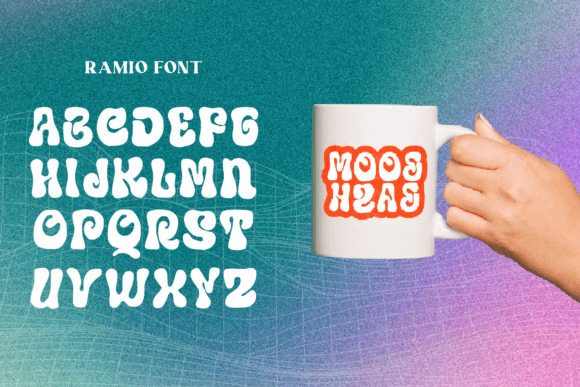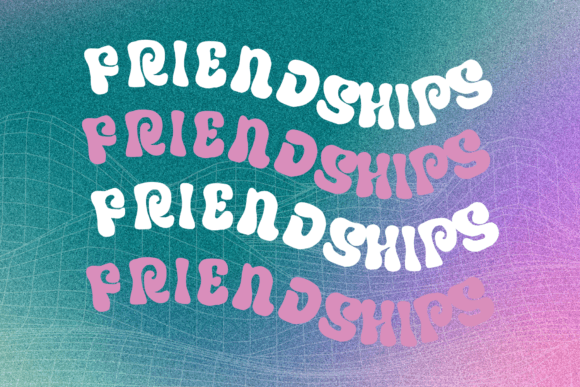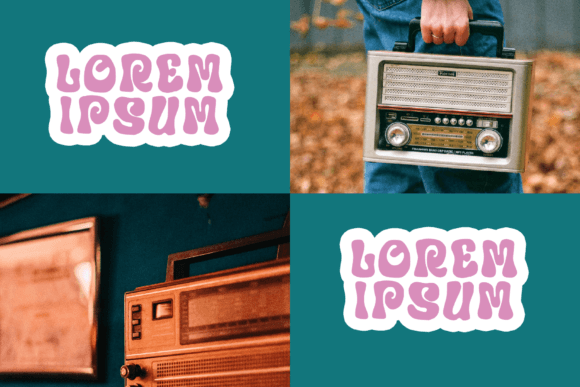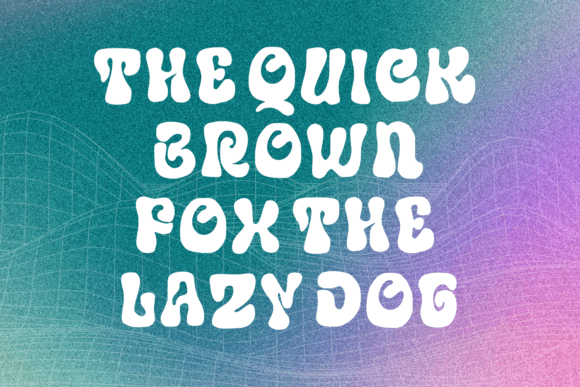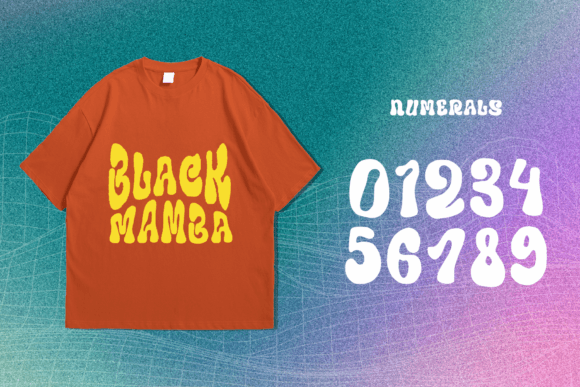
Introduction to Ramio Font
Imagine you’re browsing through a vintage record store, surrounded by the iconic album covers of the 70s and 80s. Suddenly, you stumble upon a design that makes you stop and stare – the bold, eye-catching font that screams fun and personality. That’s the magic of the Ramio Font, a design resource that’s about to take your creative projects to the next level.
As a designer, you’re always on the lookout for that special something that sets your work apart from the crowd. The Ramio Font is just that – a high-quality, free download that’s perfect for projects that demand attention and exude an infectious sense of fun. With its fluid, dynamic strokes and playful rhythm, this font is sure to be a game-changer for your next creative project.
- Unique, modern font with a transparent background, ideal for graphic design and digital art
- Comes with a scalable design, allowing for easy resizing without loss of quality
Honest Review: Ramio Font
As a designer, I’m always on the lookout for high-quality fonts to elevate my creative projects. I recently came across the Ramio Font, and I’m excited to share my honest review.
- ✨ The Ramio Font is highly customizable, with a wide range of styles and weights to choose from.
- ✨ The font is incredibly versatile and can be used for a variety of design projects, from logos to typography-based art.
- ⚠️ The Ramio Font doesn’t come with a transparent background, which can make it a bit tricky to use in certain design scenarios.
- ⚠️ The font can be a bit too bold for some designs, so be sure to use it judiciously.
Overall, I’m impressed with the Ramio Font. While it’s not perfect, its high quality and versatility make it a valuable addition to any designer’s toolkit. I’d definitely recommend it for any creative project that requires a stylish and professional font.
For optimal results, use Ramio Font in a high-quality design project, such as a brochure or a website. Experiment with different font sizes and colors to create a visually appealing design. Consider using a transparent background to give your design a clean and modern look.
Common Use Cases for Ramio Font
Some common use cases for Ramio Font include creating a logo for a creative project, designing a flyer for a business, or adding text to a photograph in Adobe Photoshop. This versatile font can be used in various design contexts, making it a valuable design resource.